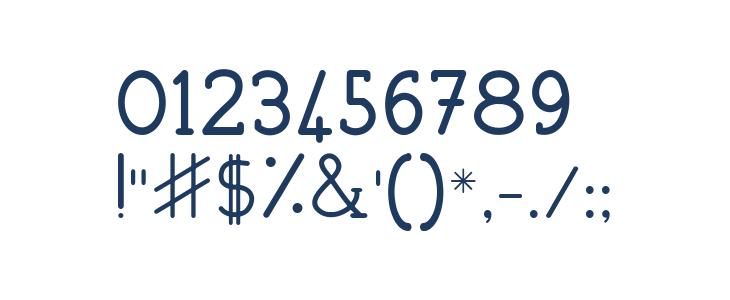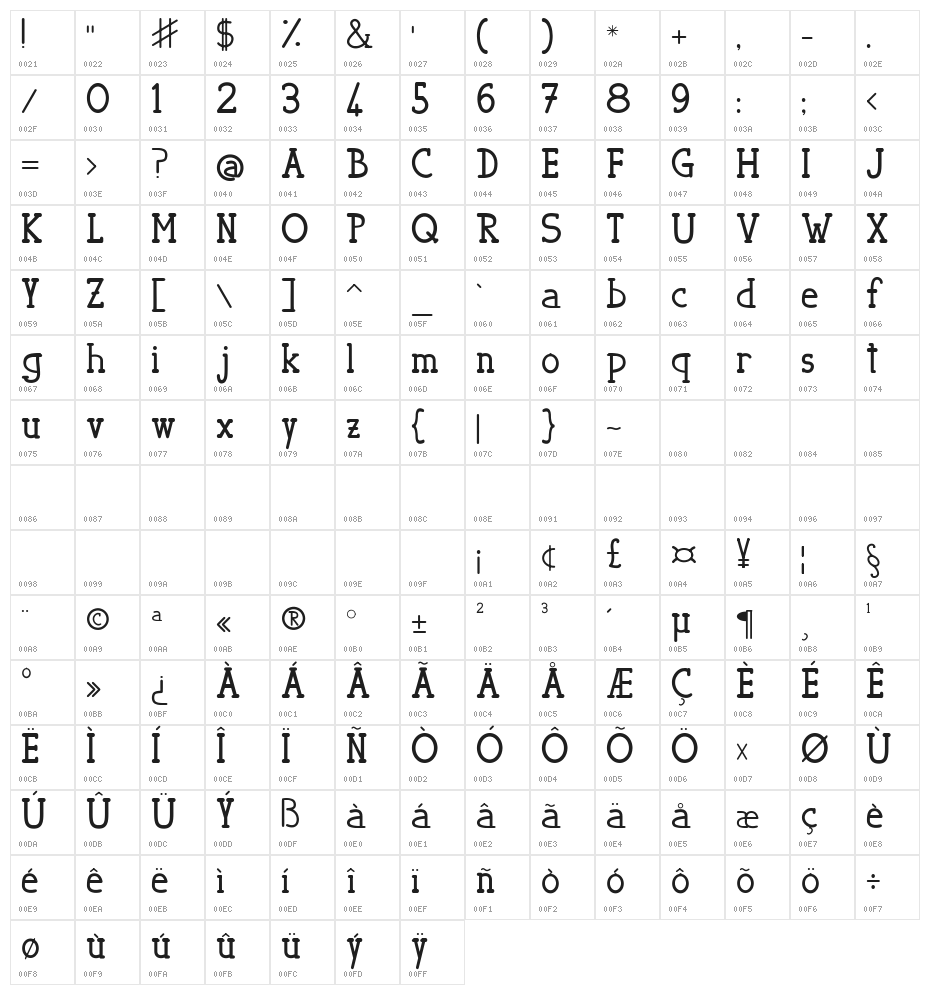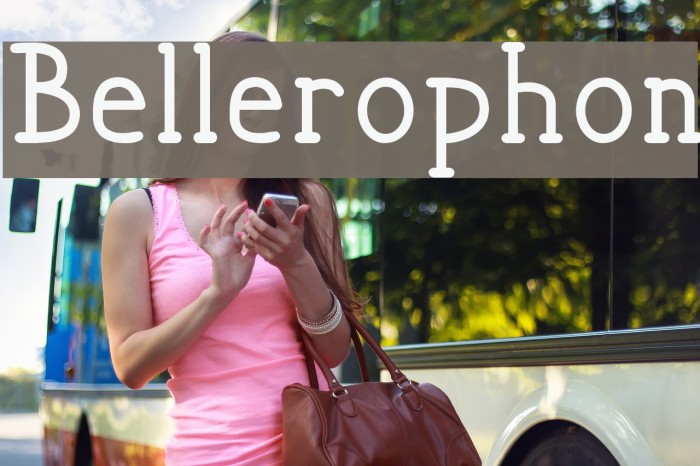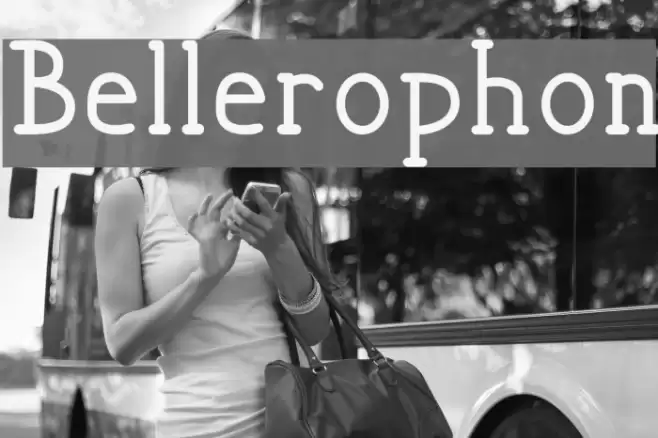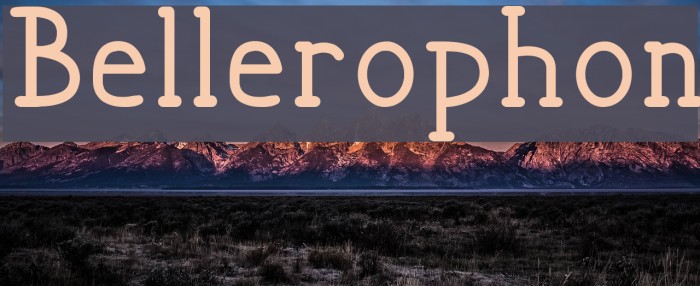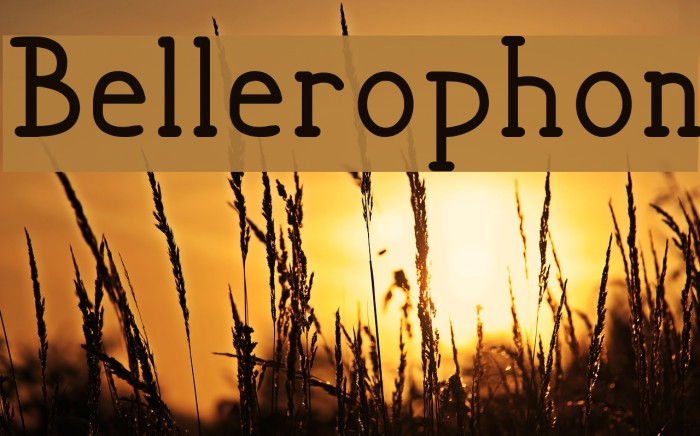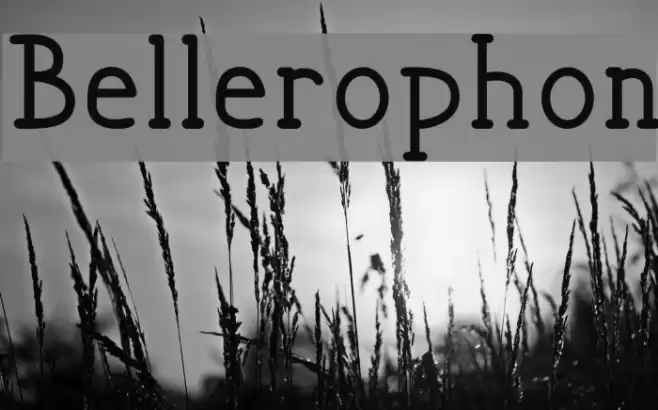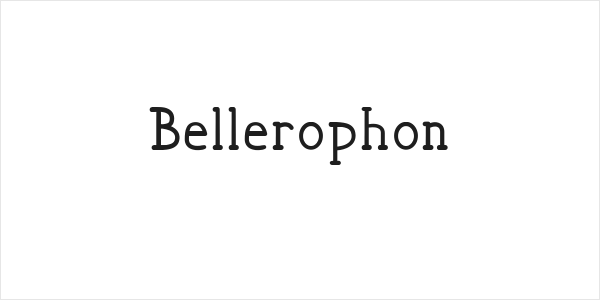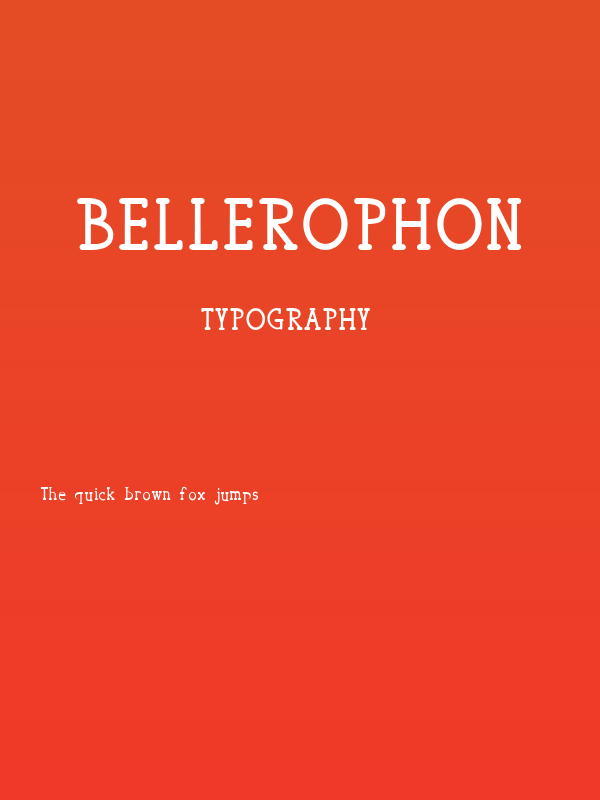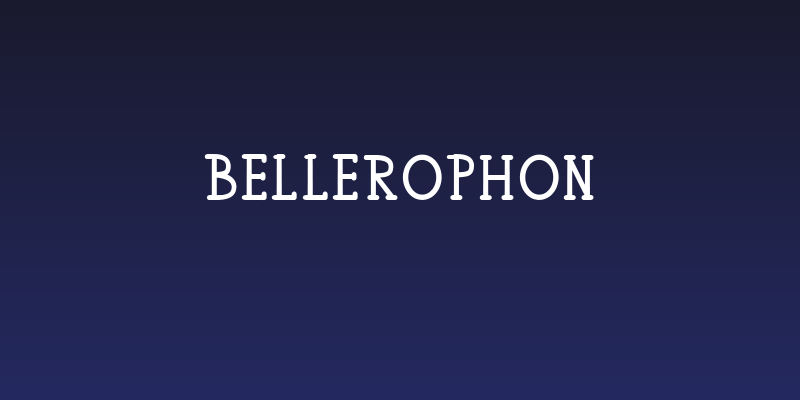
Bellerophon Font
Bellerophon Description
This font features a playful and rounded style, characterized by its smooth curves and friendly appearance. The letters have a uniform stroke width, giving it a consistent and approachable look. The uppercase letters are bold and prominent, while the lowercase letters maintain a similar weight, ensuring readability. The numerals are clear and distinct, matching the overall style of the alphabet. Special characters are well-integrated, maintaining the font's cohesive design. This font is versatile, suitable for both digital and print media, and can be used in various design projects that require a touch of warmth and approachability.